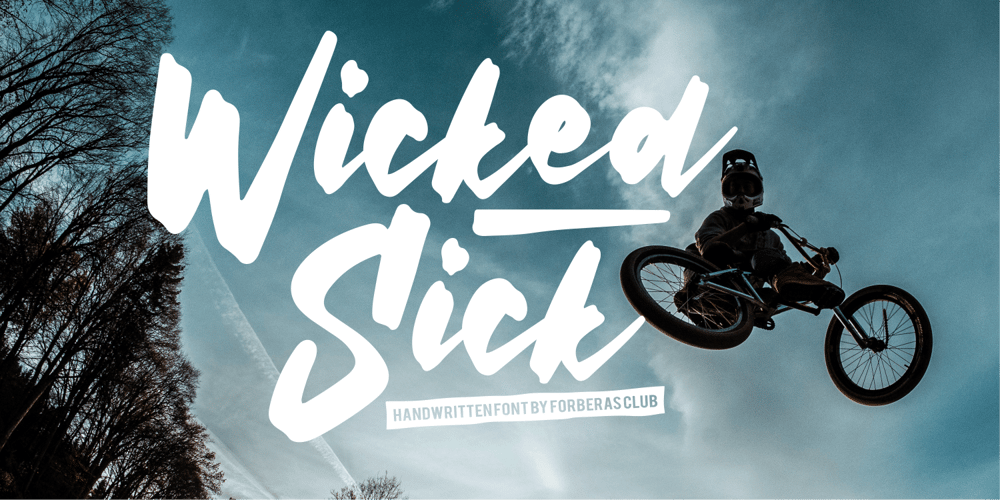
Wicked Sick Font Family was designed by ANGGI HERMAWAN and published by Forberas Club. Wicked Sick contains 1 styles and family package options. Wicked Sick is handwritten font. Will be nice if you application this font for book cover, tees, movie, poster and many more.